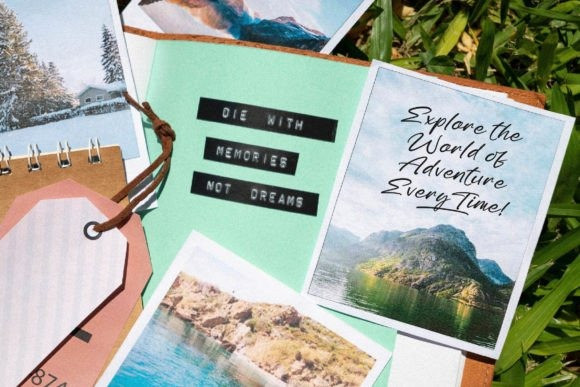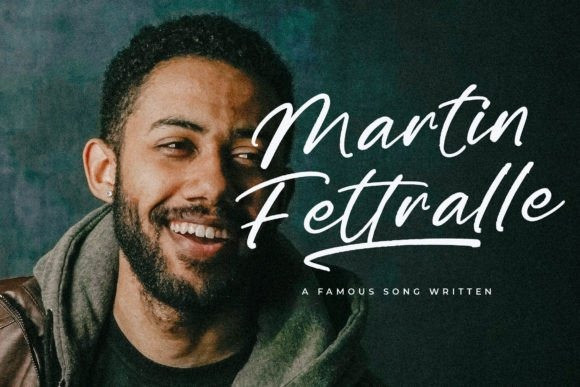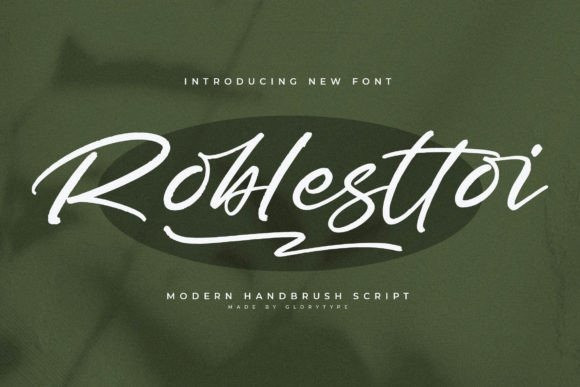
Roblesttoi Font
Roblesttoi Font is an organic and beautiful decorative font, featuring lovely curves. No matter the topic, this font will be an incredible asset to your fonts’ library, as it has the potential to elevate any creation.